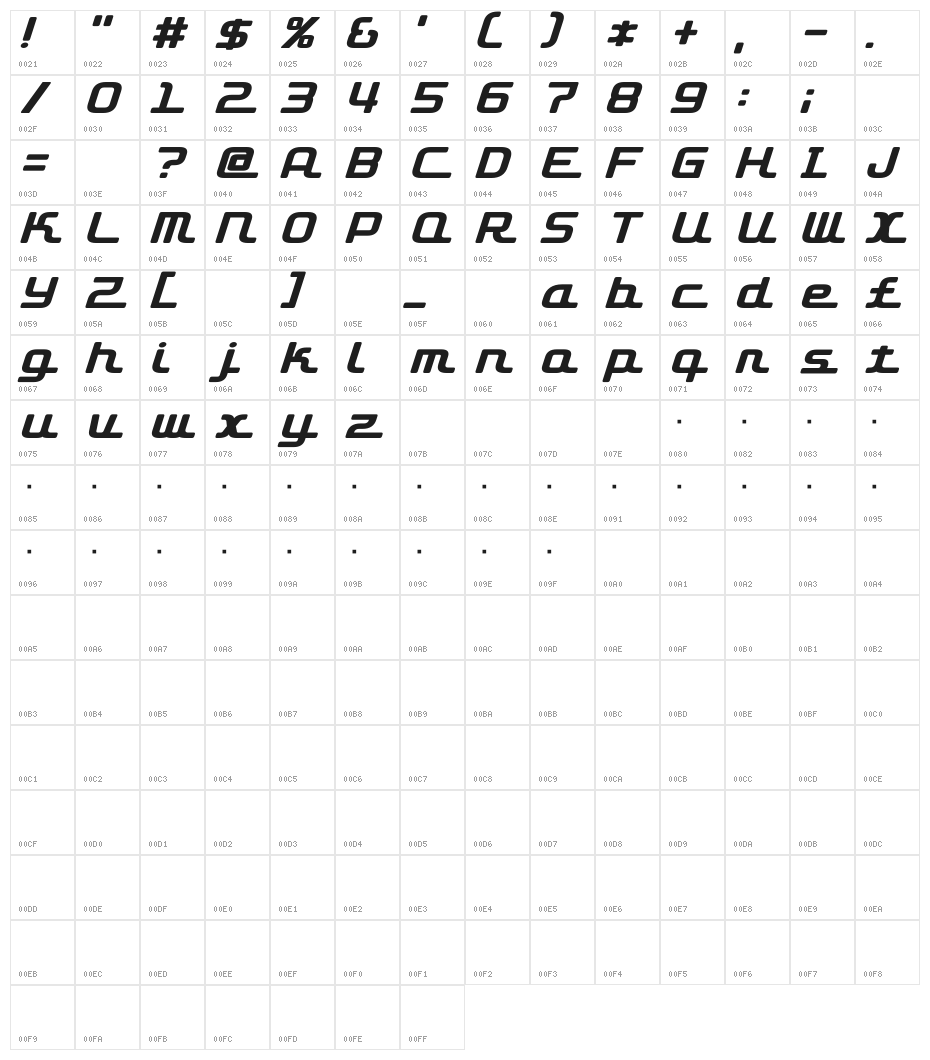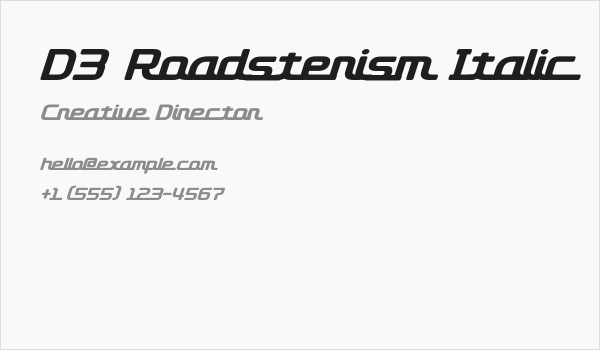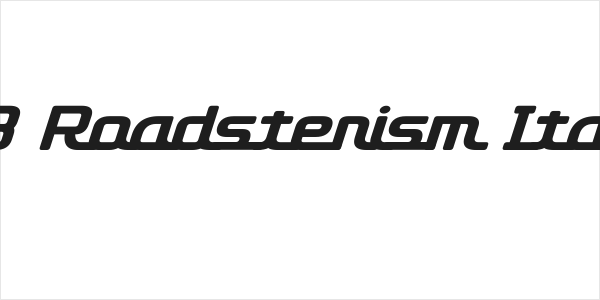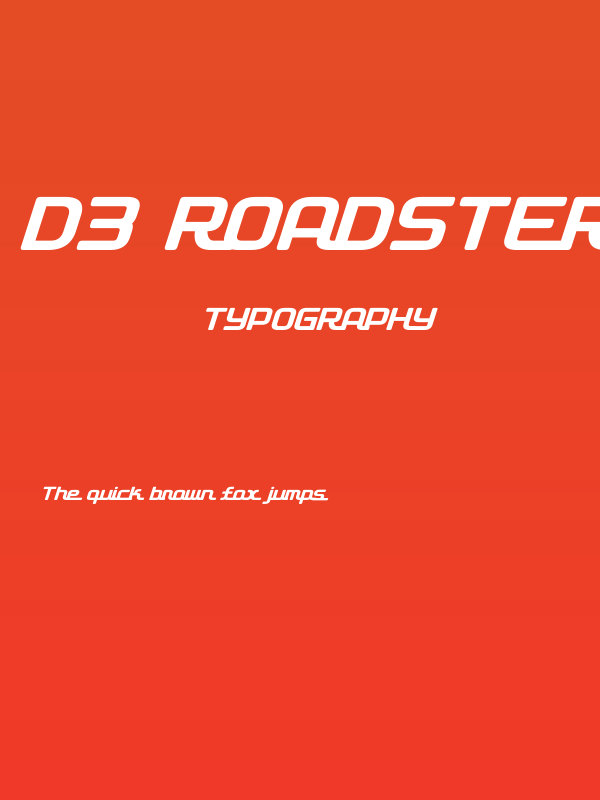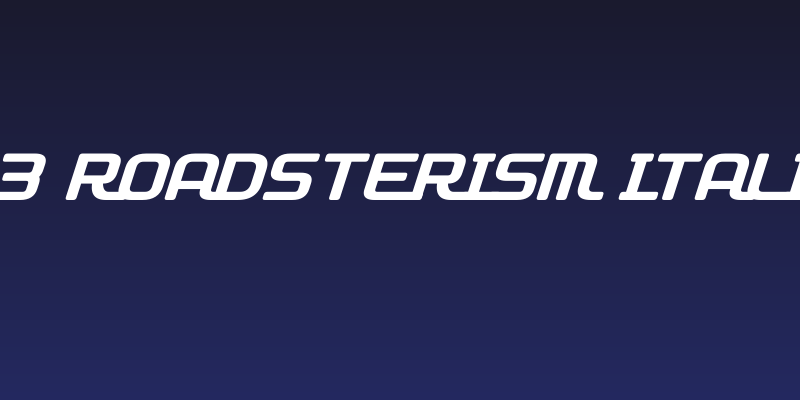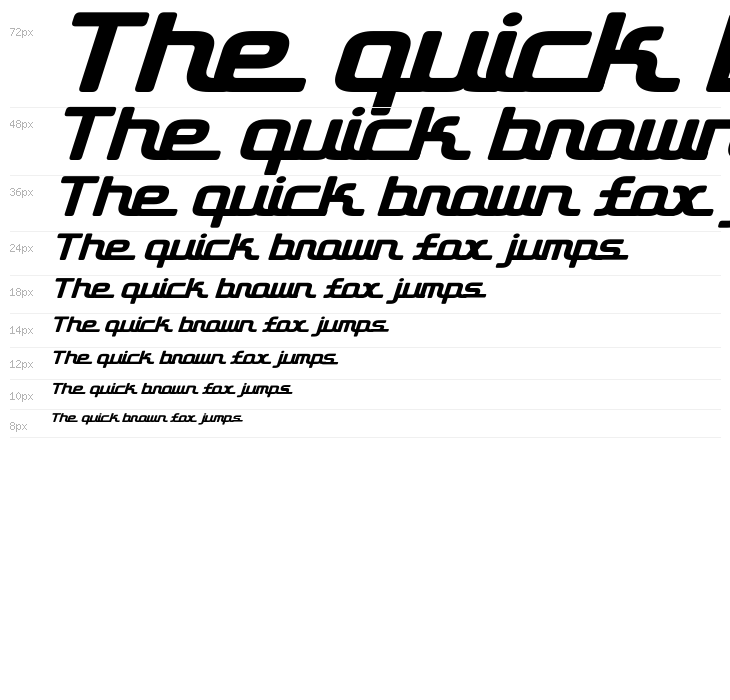
D3 Roadsterism Italic Font
D3 Roadsterism Italic Description
This font features a sleek, modern design with a distinct italic slant, giving it a dynamic and forward-moving appearance. The characters are bold and slightly condensed, with a consistent stroke width that maintains a clean and uniform look. The rounded edges and smooth curves add a touch of softness, balancing the overall boldness. The uppercase and lowercase letters are well-proportioned, ensuring readability while maintaining a stylish aesthetic. The numerals and special characters are designed to match the overall style, making them suitable for various applications. The font's unique style makes it ideal for projects that require a contemporary and energetic feel.
| Proposed Projects | Ideal for automotive branding, sports team logos, dynamic posters, and modern web design. |